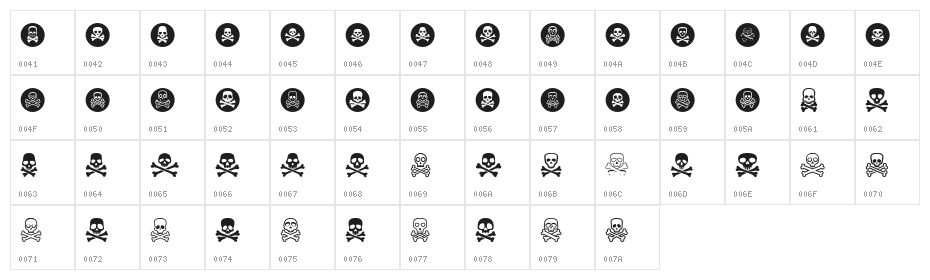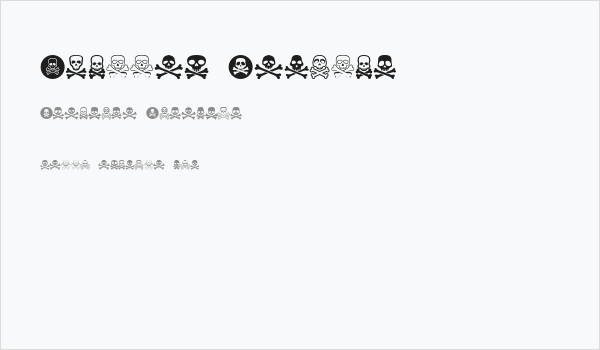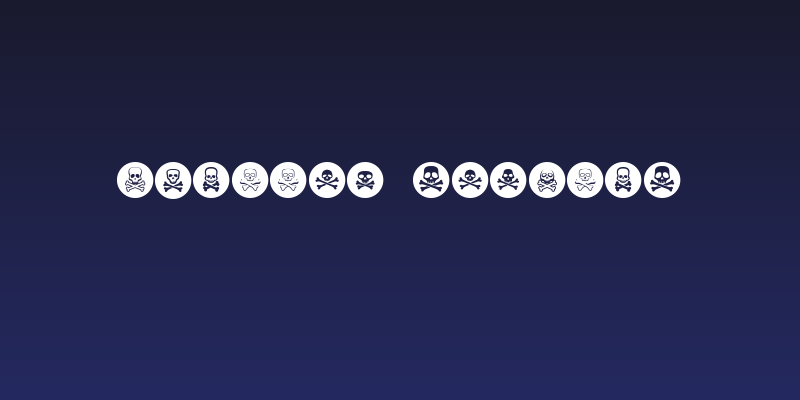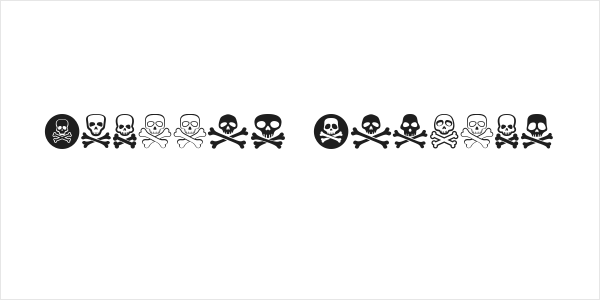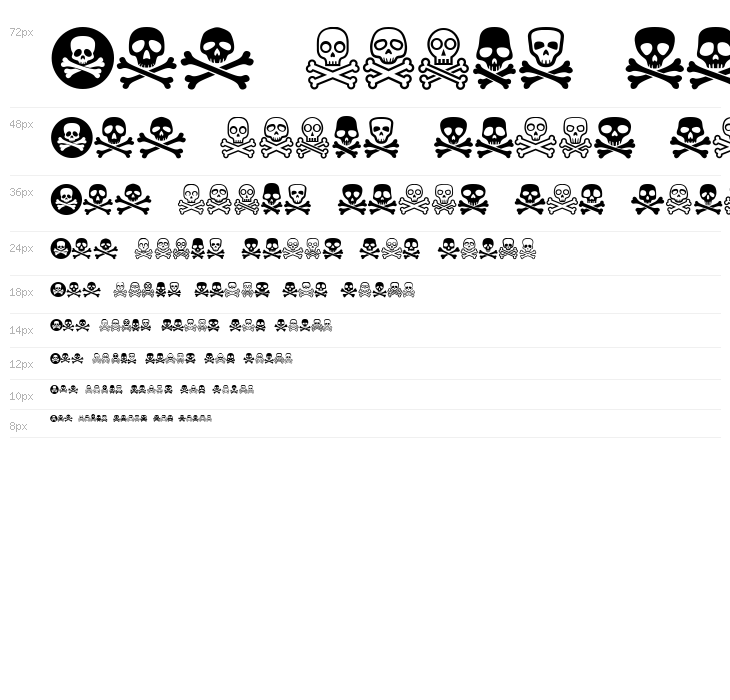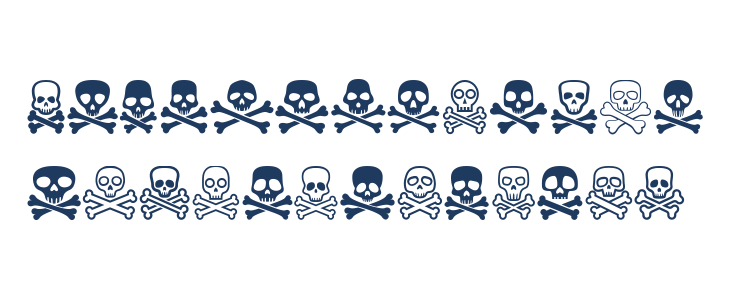
Skallen Regular Font
Skallen Regular Description
A decorative display font featuring a variety of stylized skull and crossbones icons, each glyph contained within a solid black circle or outlined form, with playful and cartoonish variations in skull expressions and bone arrangements.
| Overall Style | Decorative, Playful, Thematic |
| Use Case | Logos, Posters, Themed headlines, Event graphics |
| Proposed Projects | Halloween invitations, pirate-themed party materials, warning labels, children’s event graphics, novelty merchandise. |